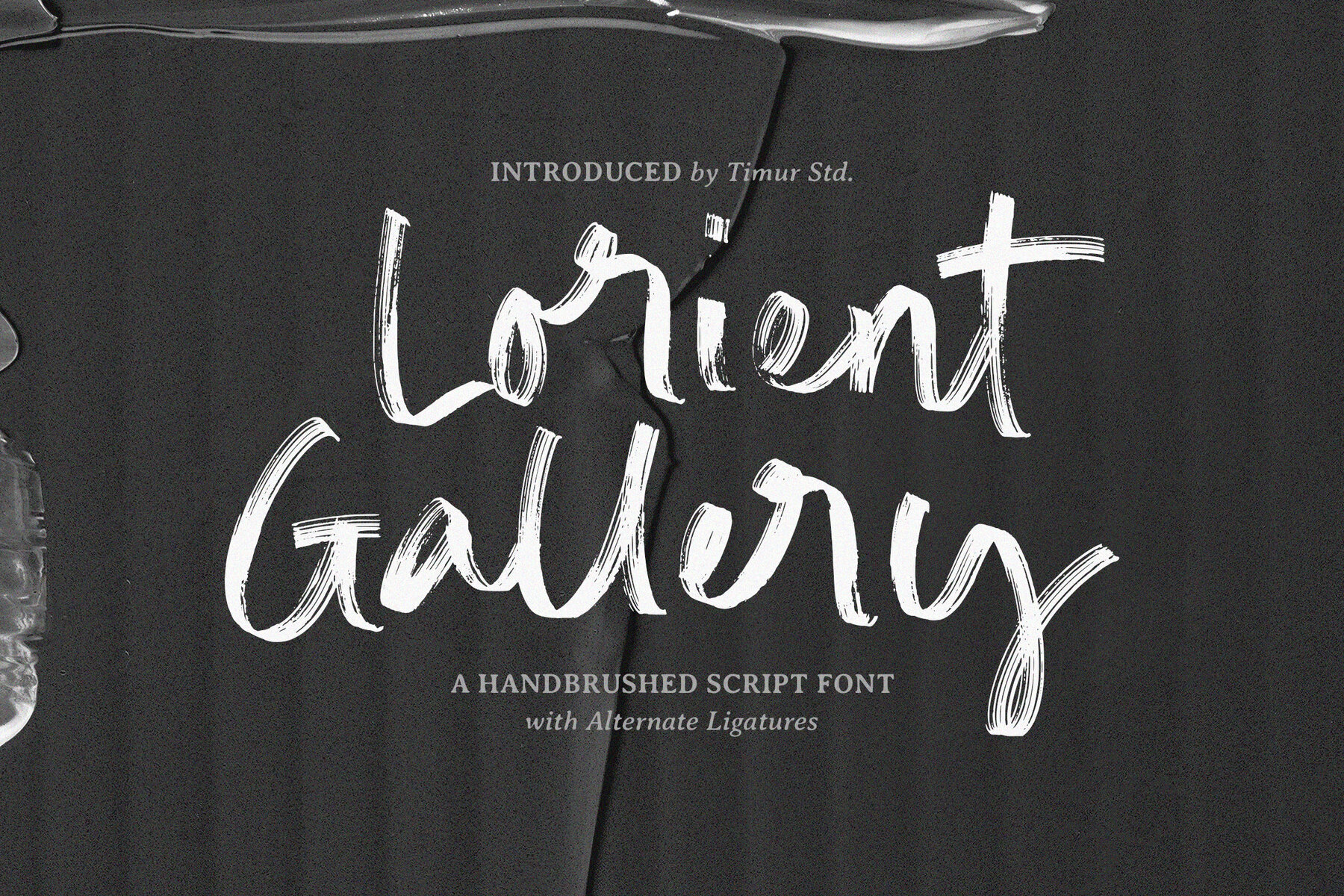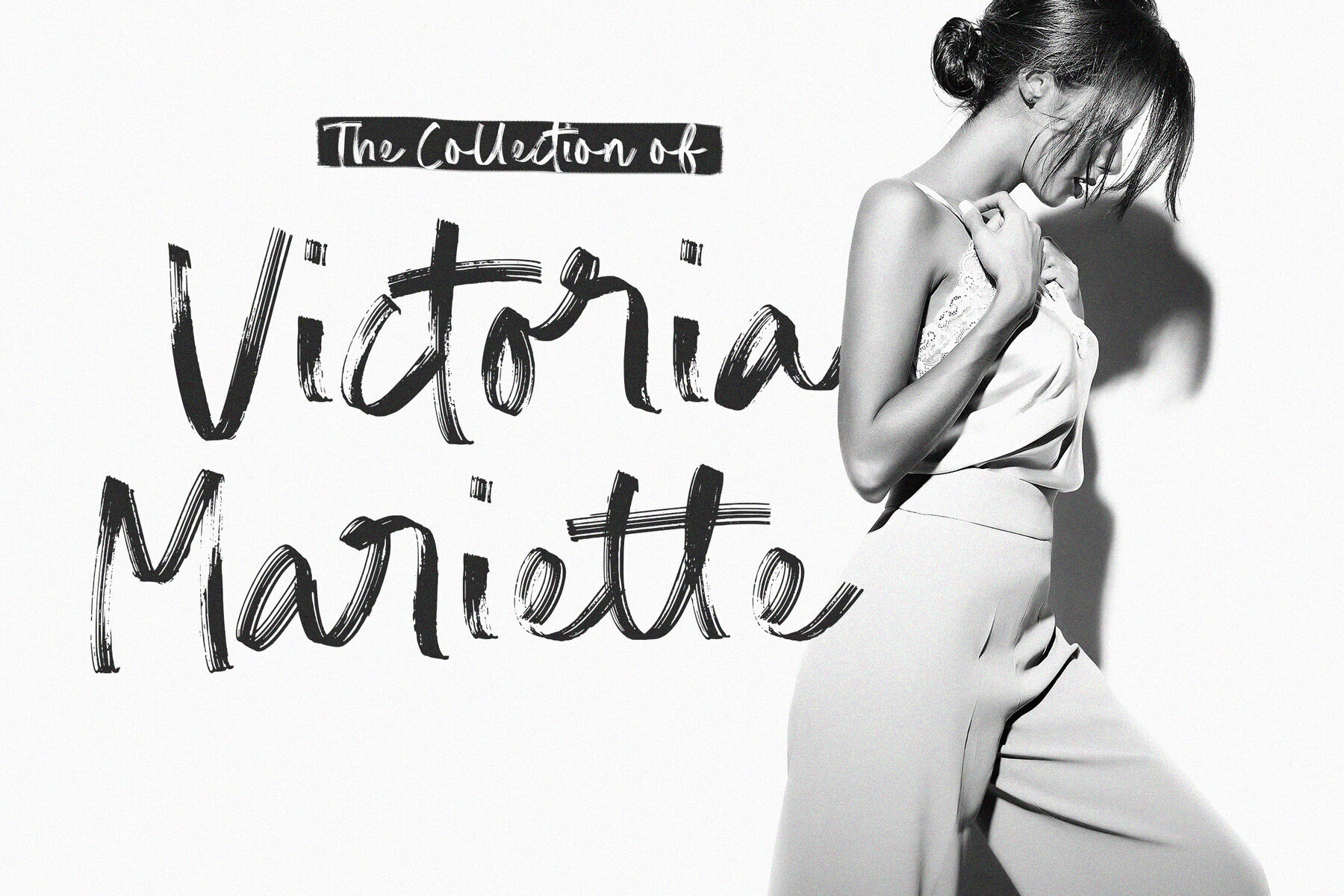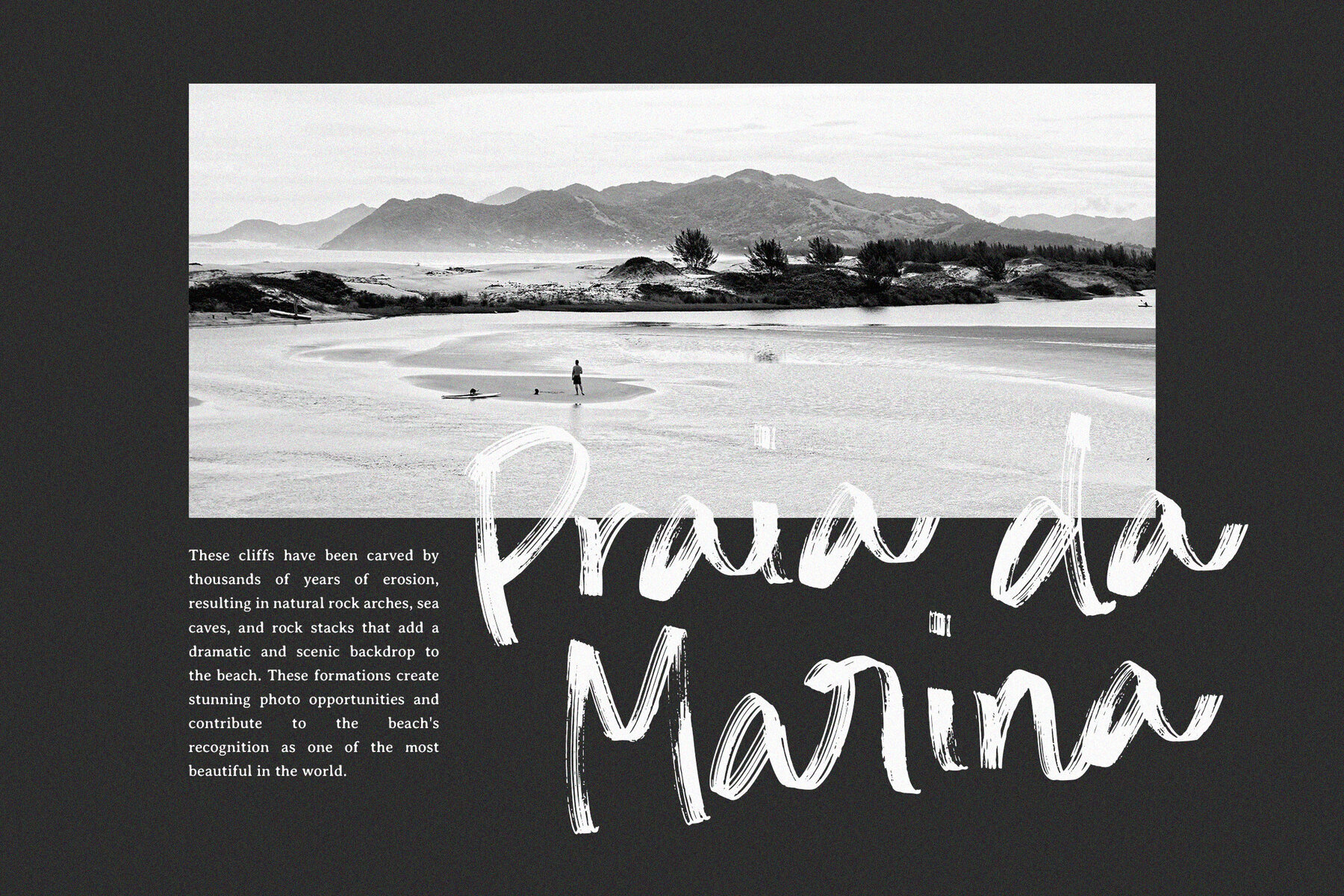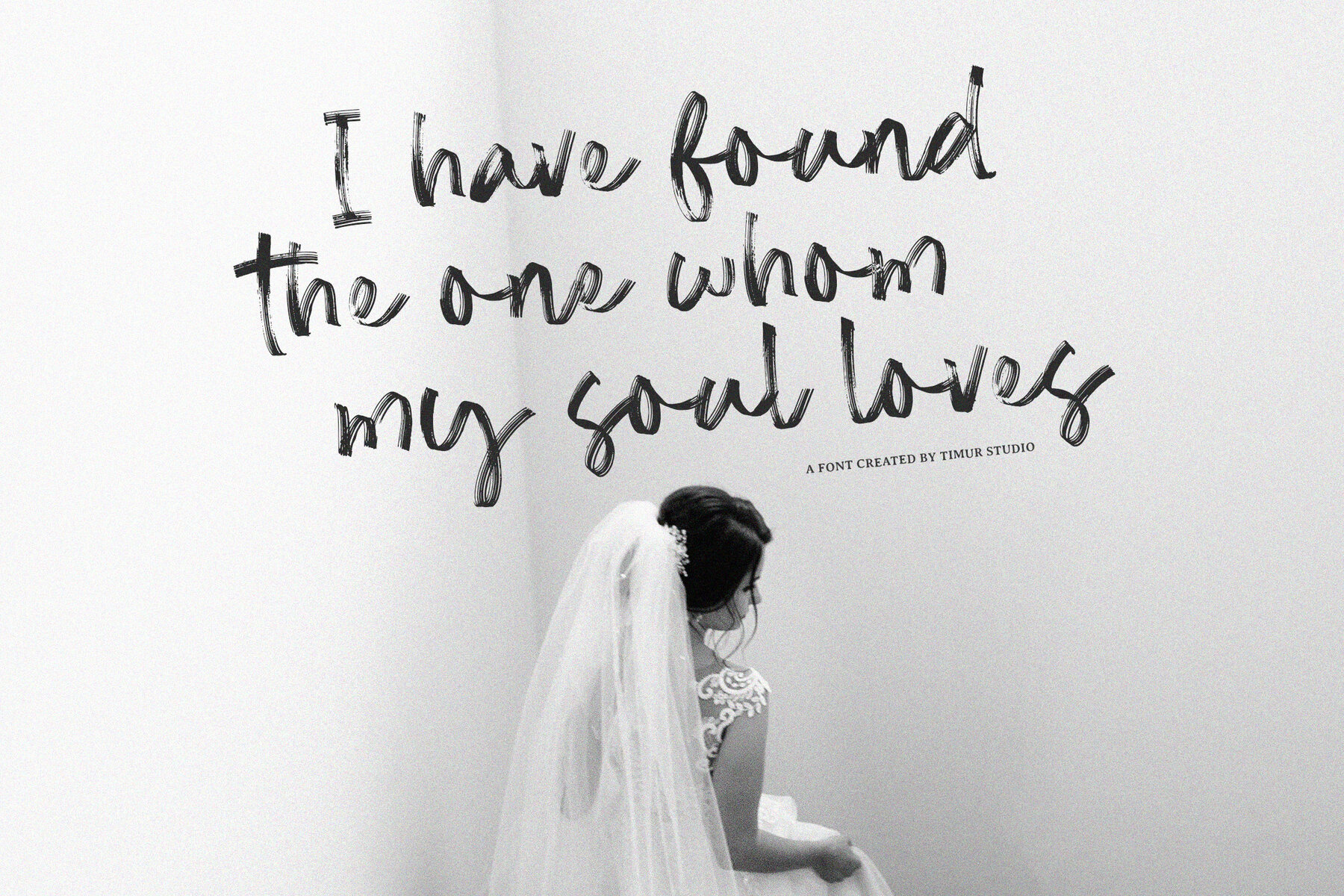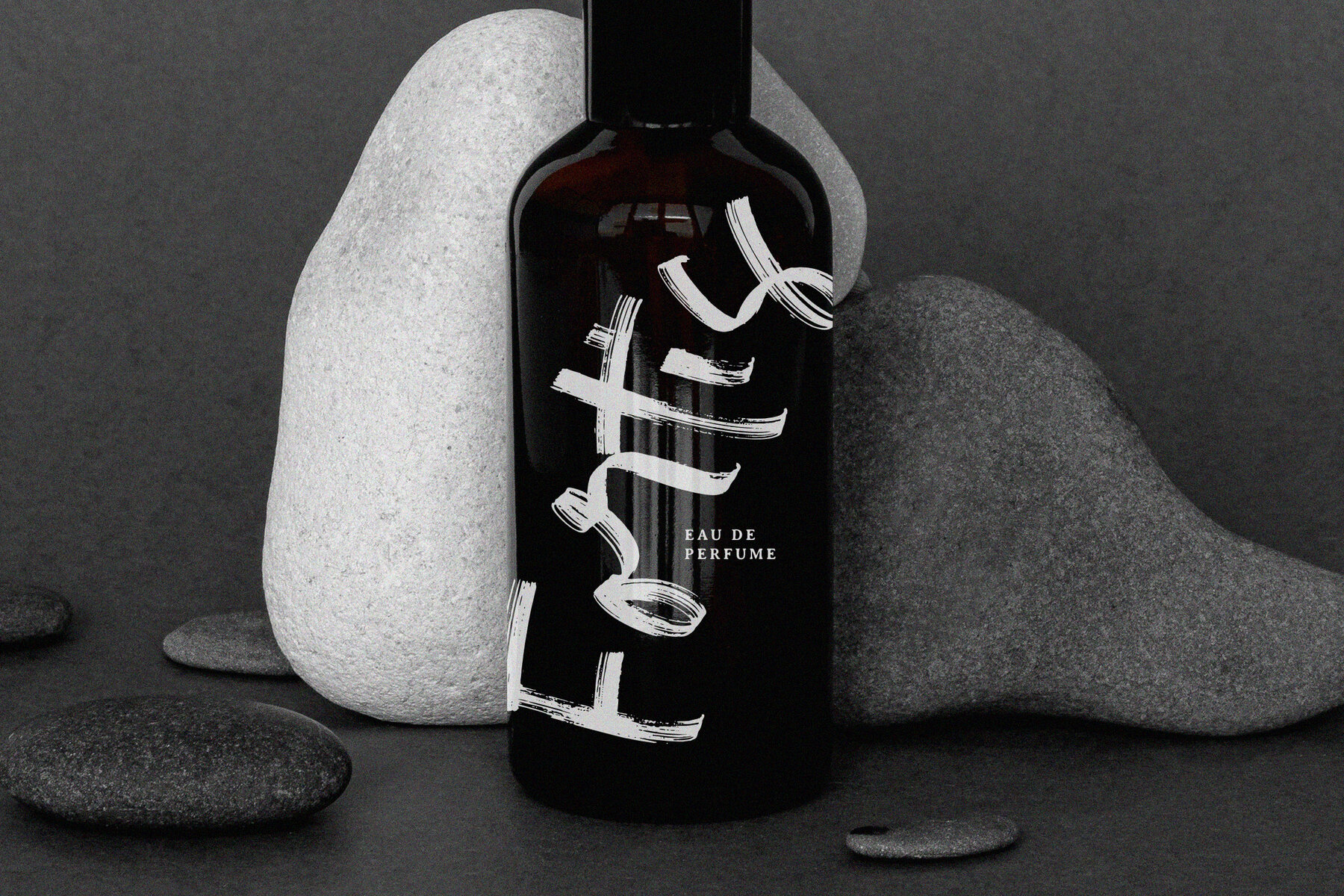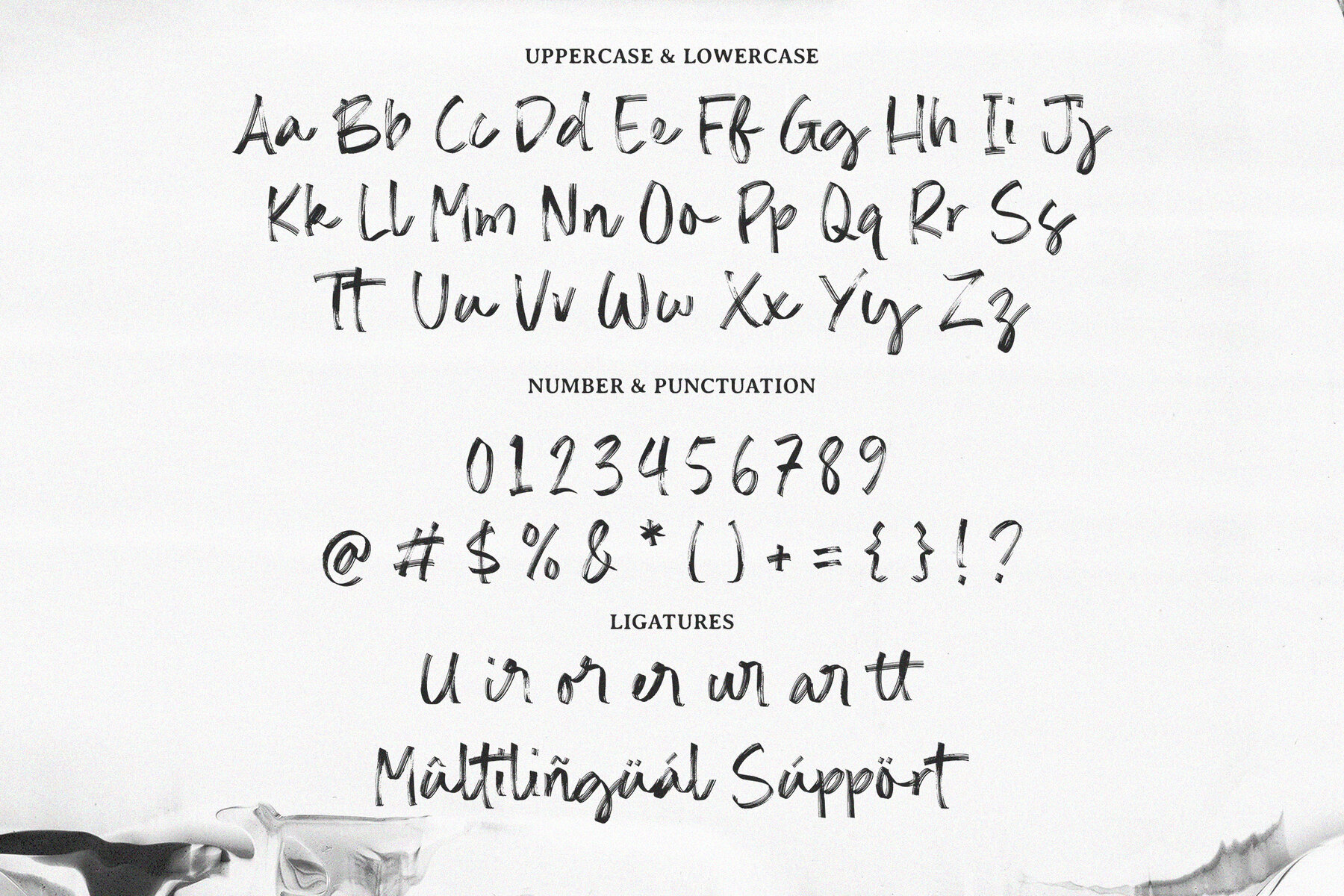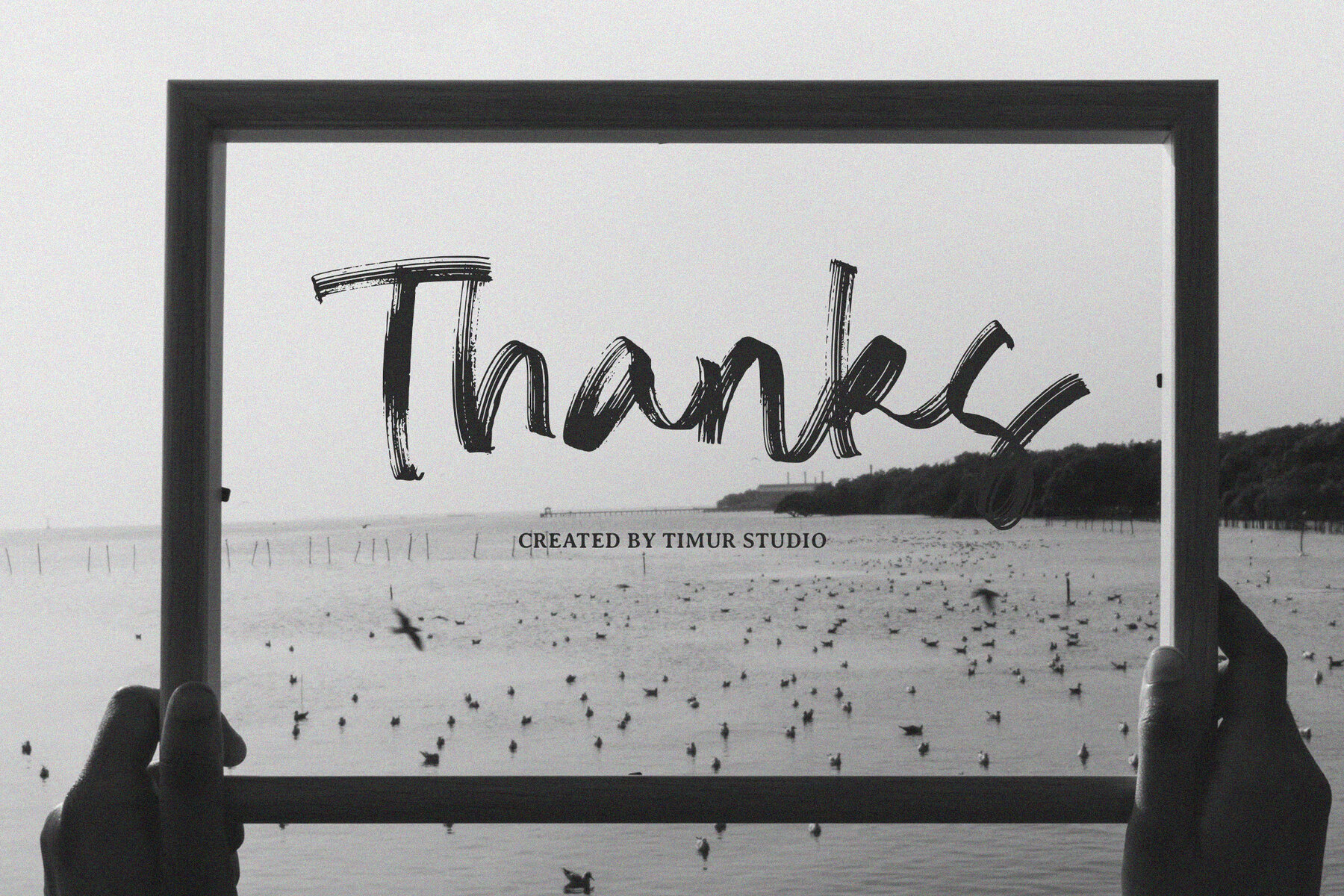
Lorient Gallery Font
Lorient Gallery
Discover the elegance of Lorient Gallery, a handbrushed script font that seamlessly melds artistic flair with modern sophistication. With its smooth, flowing strokes and natural handwritten appeal, this font introduces a unique charm to your creative projects. Ideal for branding and invitations, Lorient Gallery offers a graceful touch to amplify any design.Lorient Gallery